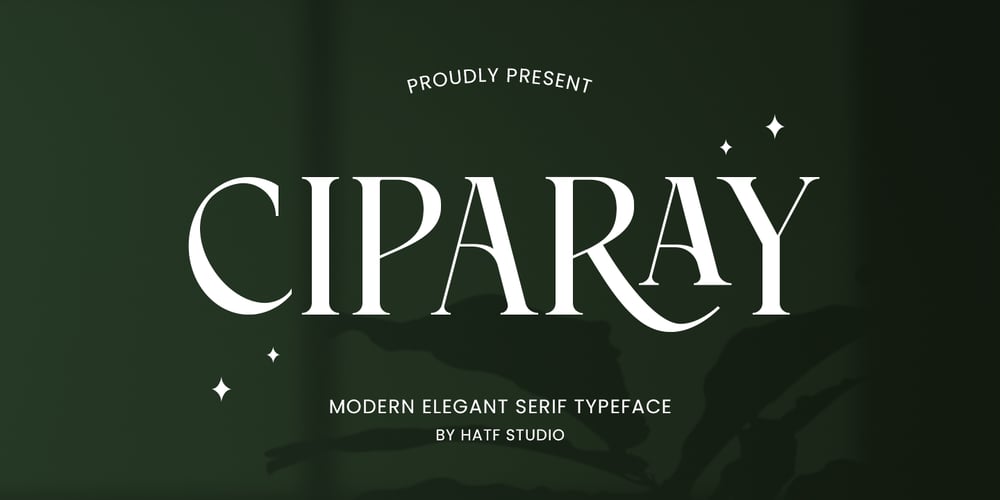
Ciparay
Ciparay font
Ciparay Font Family was designed by Asep Rendi and published by Hatftype. Ciparay contains 1 styles and family package options. CIPARAY is an elegant serif font have a characteristic that exudes elegance and assertiveness. With classic and proportional letter details, this font gives a very professional and timeless impression. Each letter is carefully designed, with serif adding an artistic touch and luxury.The fine lines of each letter create a clean, neat feel, while the serif add a classic and traditional element. This font is very suitable for use in designs that require a formal impression, such as wedding invitations, company materials, or publications that prioritize aesthetics and beauty.The advantage of elegant serif font is their ability to give an exclusive and classy impression, while still maintaining good readability. This font is often used to create elegant and attention-grabbing layouts without losing professionalism.With a combination of elegance and firmness, elegant serif font are the right choice for design projects that emphasize beauty and elegance in every detail of the letters.